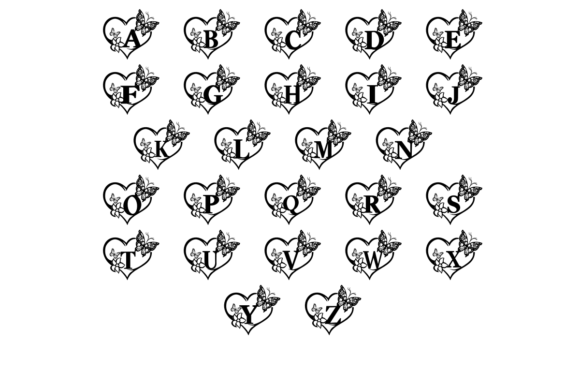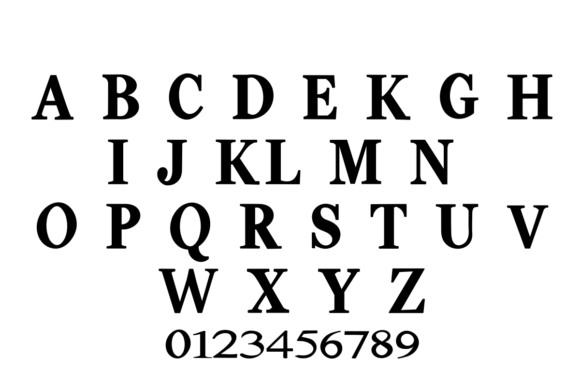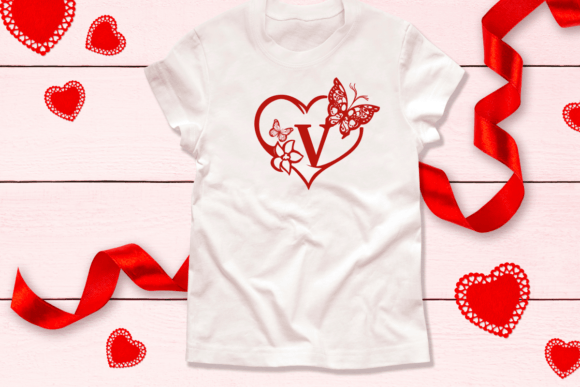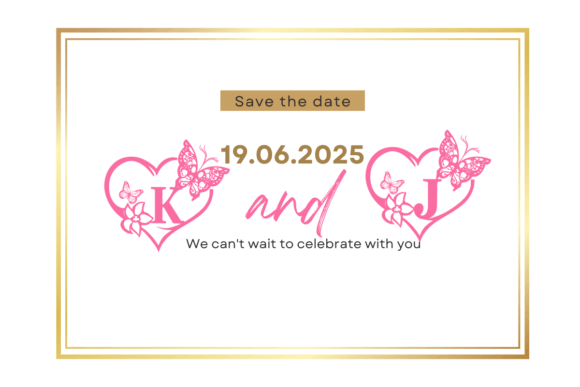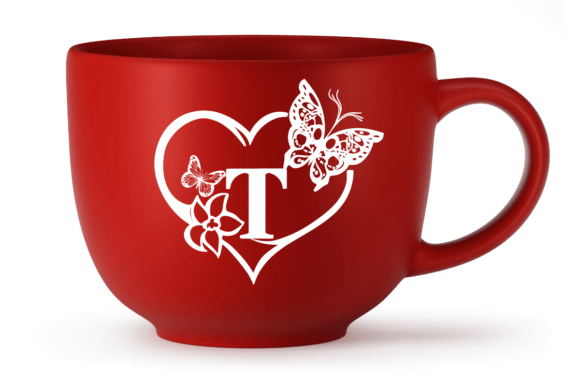
Introduction to Butterfly Hearts Font Font
Fonts play a crucial role in design, and the Butterfly Hearts Font font is a typeface that brings both character and versatility to any project. Whether you’re working on a branding project, a website, or a print design, the Butterfly Hearts Font font offers a unique style that can elevate your work.
Butterfly hearts is a Decorative font You can use it for taking notes, writing a diary, or making greeting cards.
However, you can still use it for other designs, such as banners, content, mugs, cards, shirts, stationery, social media posts, and more .
Key Features of Butterfly Hearts Font Font
Why Choose Butterfly Hearts Font Font?
The Butterfly Hearts Font font is more than just a typeface – it’s a design tool that helps you communicate your message with style and clarity. Its unique character set and versatile design make it suitable for a wide range of applications, from elegant invitations to bold headlines.
With its carefully crafted letterforms and balanced proportions, the Butterfly Hearts Font font ensures readability and visual appeal across all mediums.
What makes Butterfly Hearts Font font special?
The Butterfly Hearts Font font stands out with its unique design, exceptional readability, and versatility across various design applications.